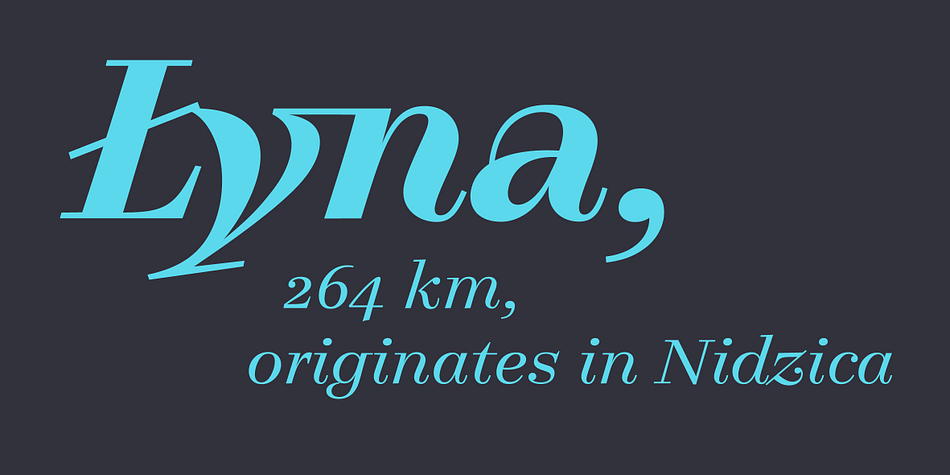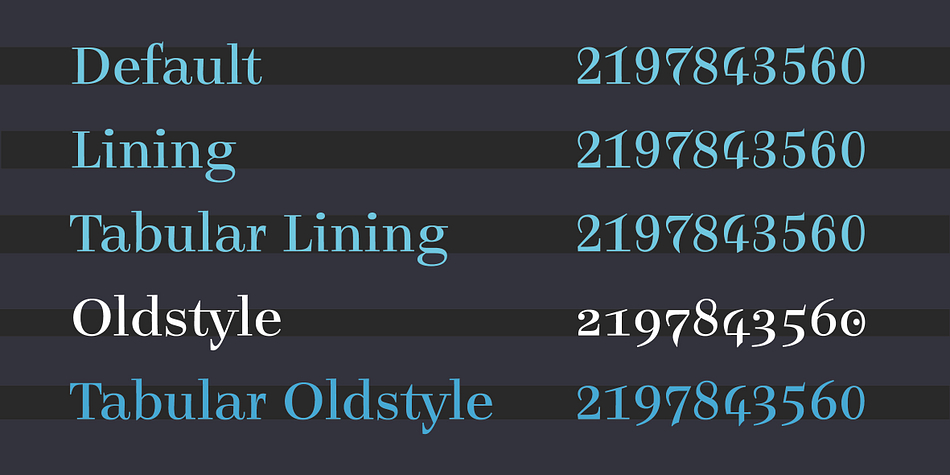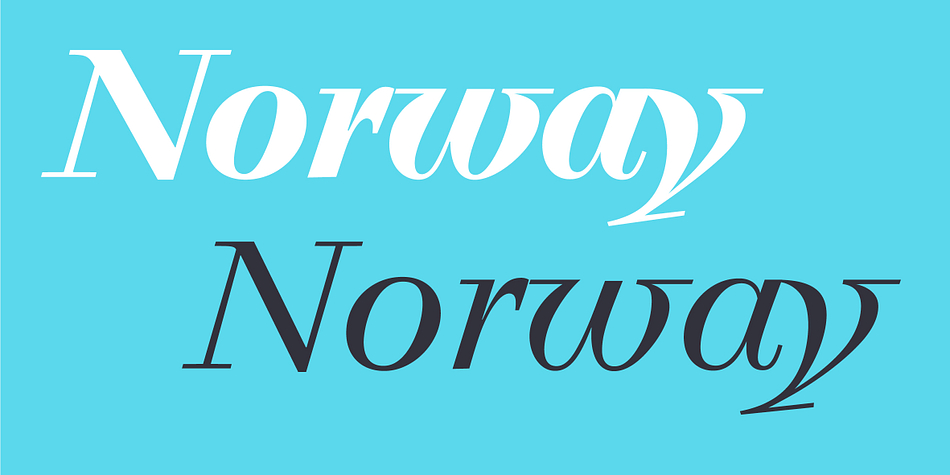
Legit Didone
Designed by Hans Heitmann, Legit Didone is a serif font family. This typeface has ten styles and was published by Finaltype.
Legit Didone is a didone typeface that features both optimal readability in small sizes as well as elegant aesthetics in display use. The standout feature of our Legit superfamily is its innovative uniwidth system: all weights and styles are 100% compatible in width and remain swappable without altering the layout. The typeface comes with a set of ligatures and stylistic alternates as well as strong and clear accents to support more than 36 languages.